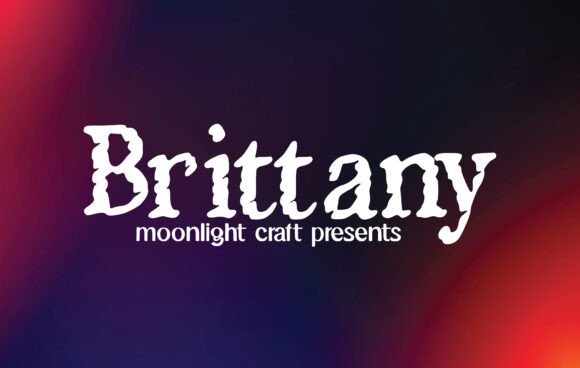
The Ultimate Go-To Font: Discover the Versatility of Brittany Font
I’ll never forget the time I was working on a magazine cover design, and my client kept changing their mind about the font. We must have gone through a dozen different options before I finally suggested a font that became the perfect fit – Brittany Font. With its clear and easy-to-read style, it brought the entire design together seamlessly. If you’re a designer, crafter, or creative hobbyist looking for a versatile and eye-catching font, you’re in luck! In this article, we’ll dive into the world of Brittany Font and explore its many uses.
- ✅ Versatility: Brittany Font is designed to be a go-to favorite, suitable for a wide range of projects, from magazine covers to t-shirts, social media posts, branding, wedding invitations, and greeting cards.
- ✅ Readability: Its clear and easy-to-read style makes it perfect for both titles and body text.
- ✅ Style and Personality: Brittany Font brings a touch of style and personality to any design, making it stand out from more generic fonts.
- ⚠️ Limited Availability of Certain Glyphs: Some users have reported that certain glyphs or special characters are not available in Brittany Font. However, this can be easily addressed by using OpenType features or glyphs in compatible software.
- ⚠️ Occasional Kerning Issues: A few users have experienced minor kerning issues when using Brittany Font in certain software or platforms. However, these issues can be easily resolved by adjusting the kerning manually.
The Story Behind Brittany Font: Designer Inspiration
Brittany Font was designed with the goal of creating a versatile and eye-catching font that could be used in a wide range of projects. The designer aimed to craft a font that was both clear and easy to read, while also bringing a touch of style and personality to any design. The result is a font that has become a go-to favorite among designers, crafters, and creative hobbyists.
Q: What is the best way to use Brittany Font in my designs?
A: Experiment with different OpenType features, glyphs, and stylistic alternates to add more personality to your text. You can also use Brittany Font for both titles and body text to create a cohesive look.
Q: Is Brittany Font available in different weights or styles?
A: While Brittany Font may not be available in multiple weights or styles, you can experiment with different font sizes, colors, and effects to create a unique look.